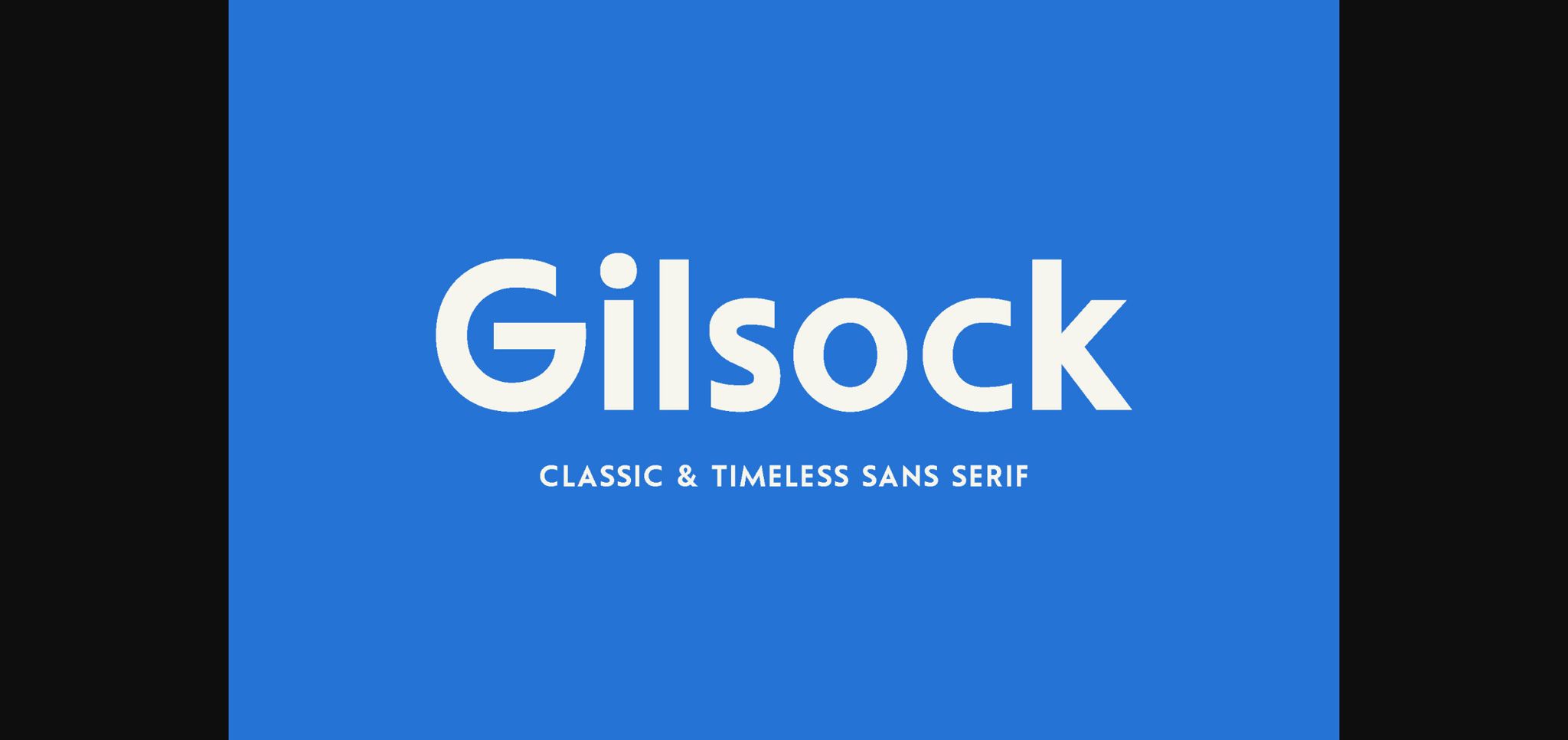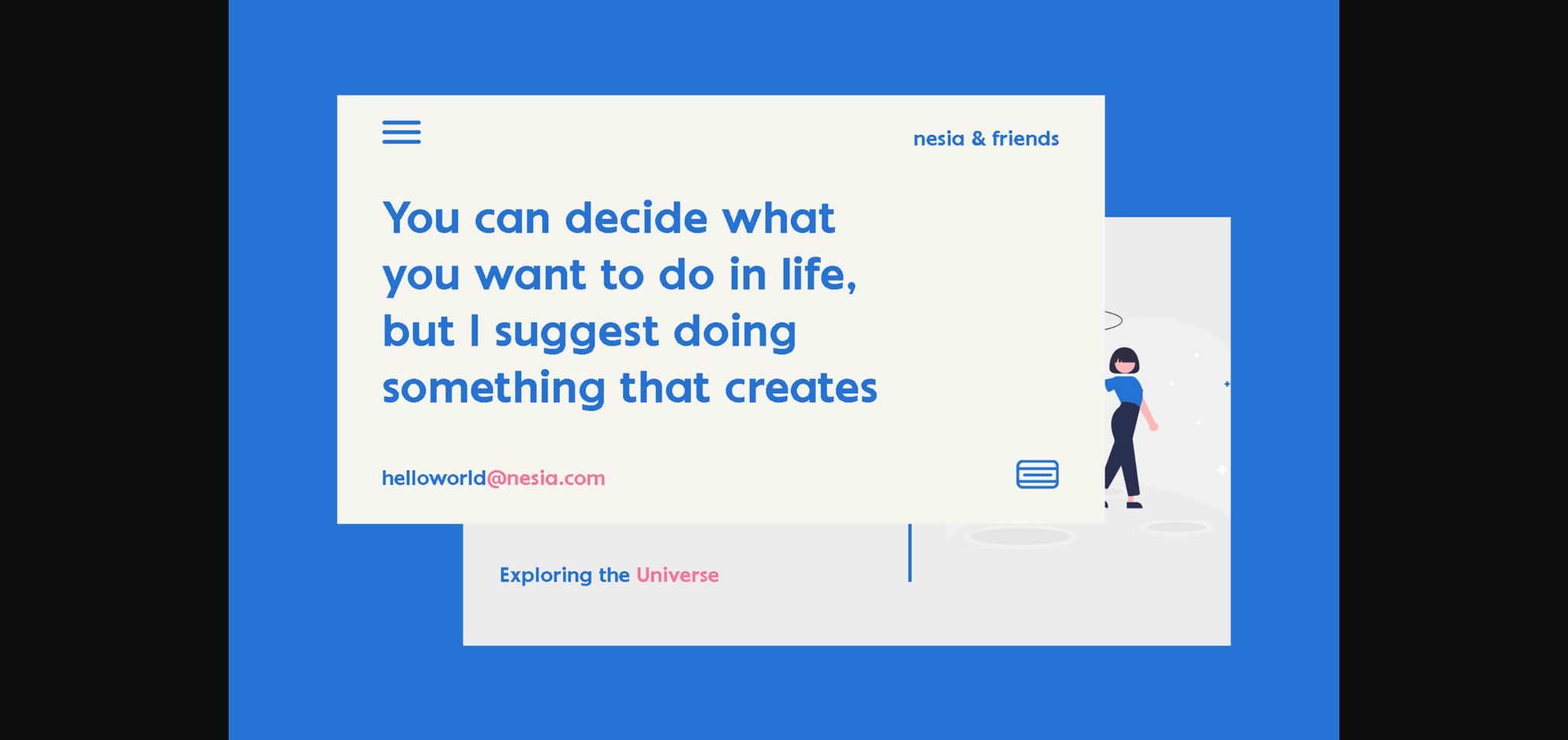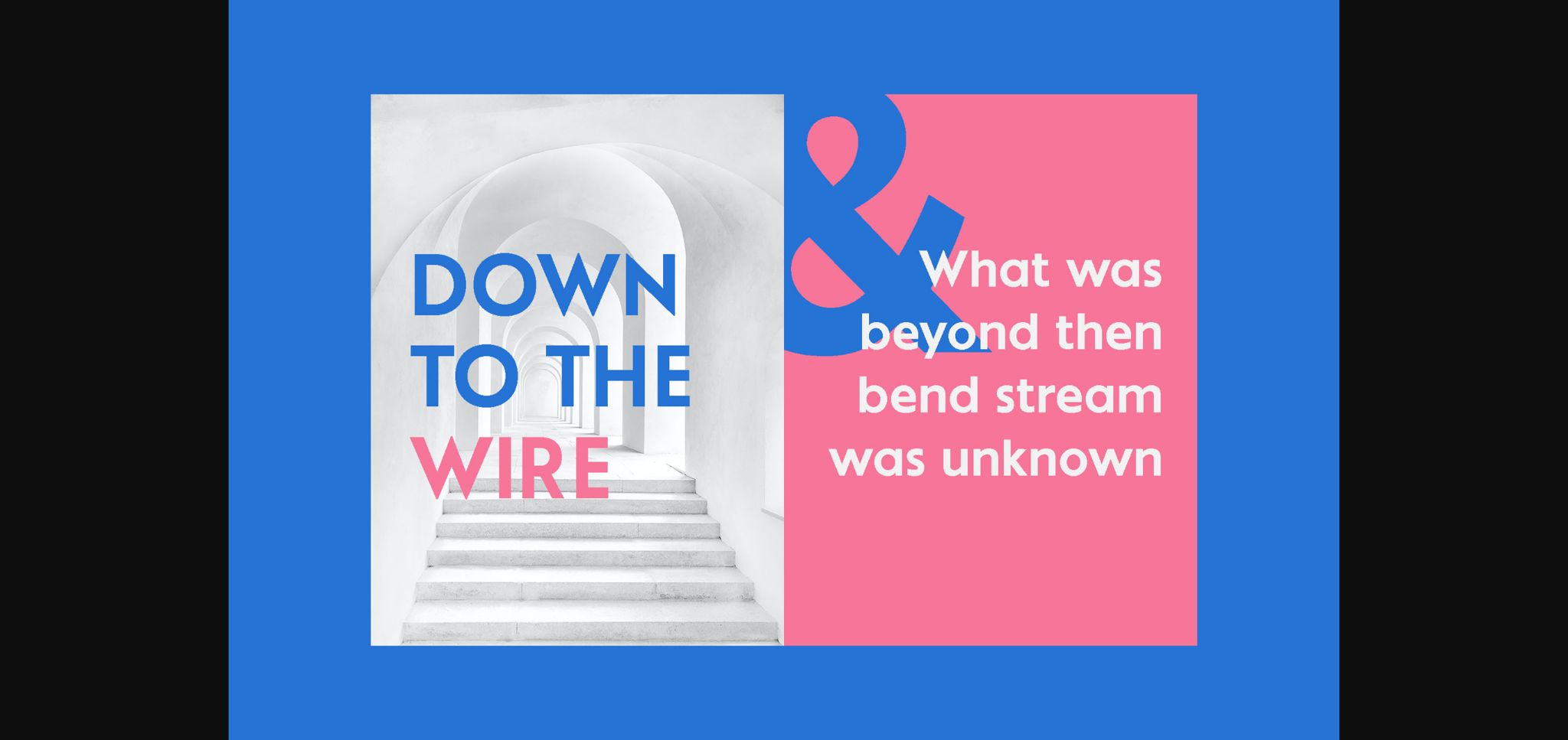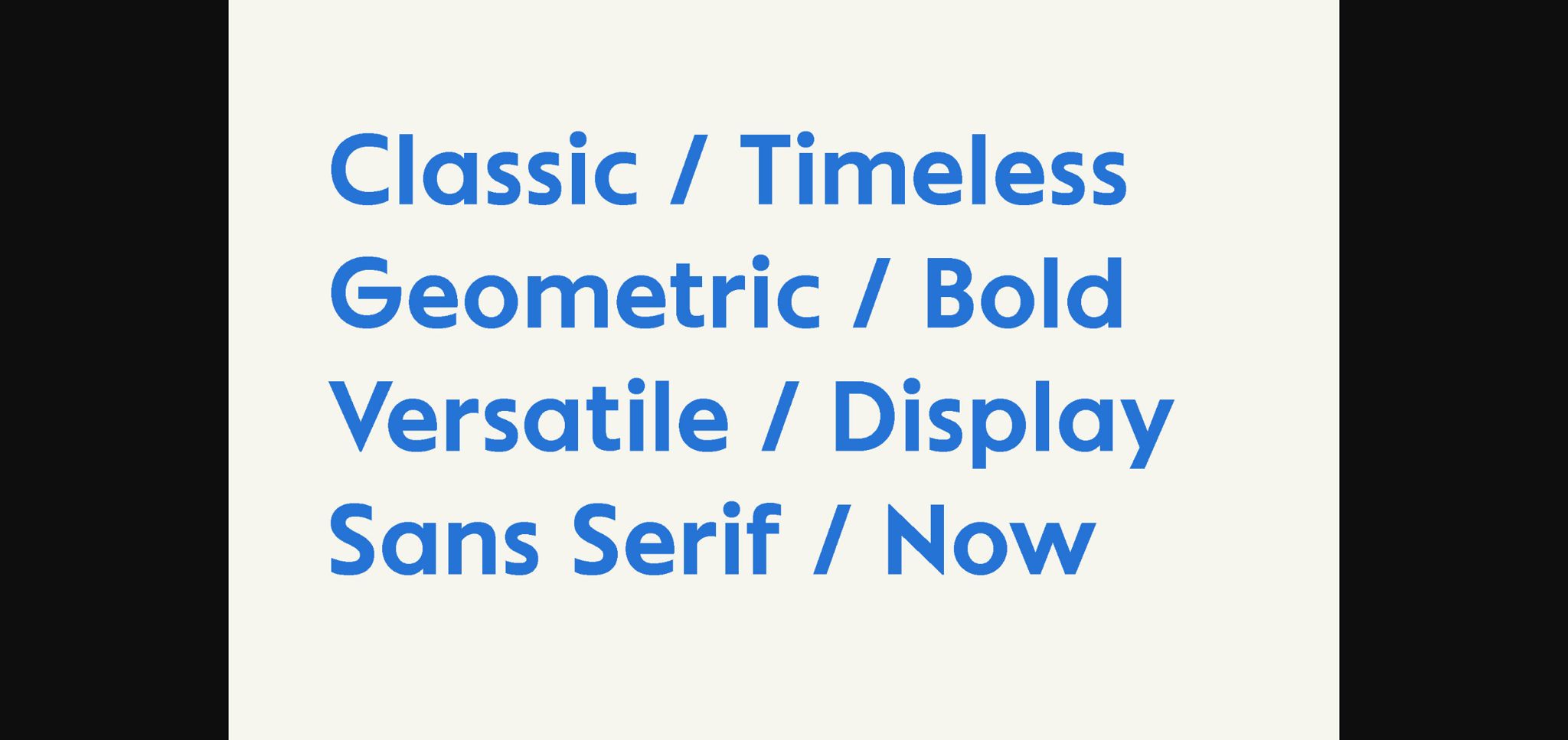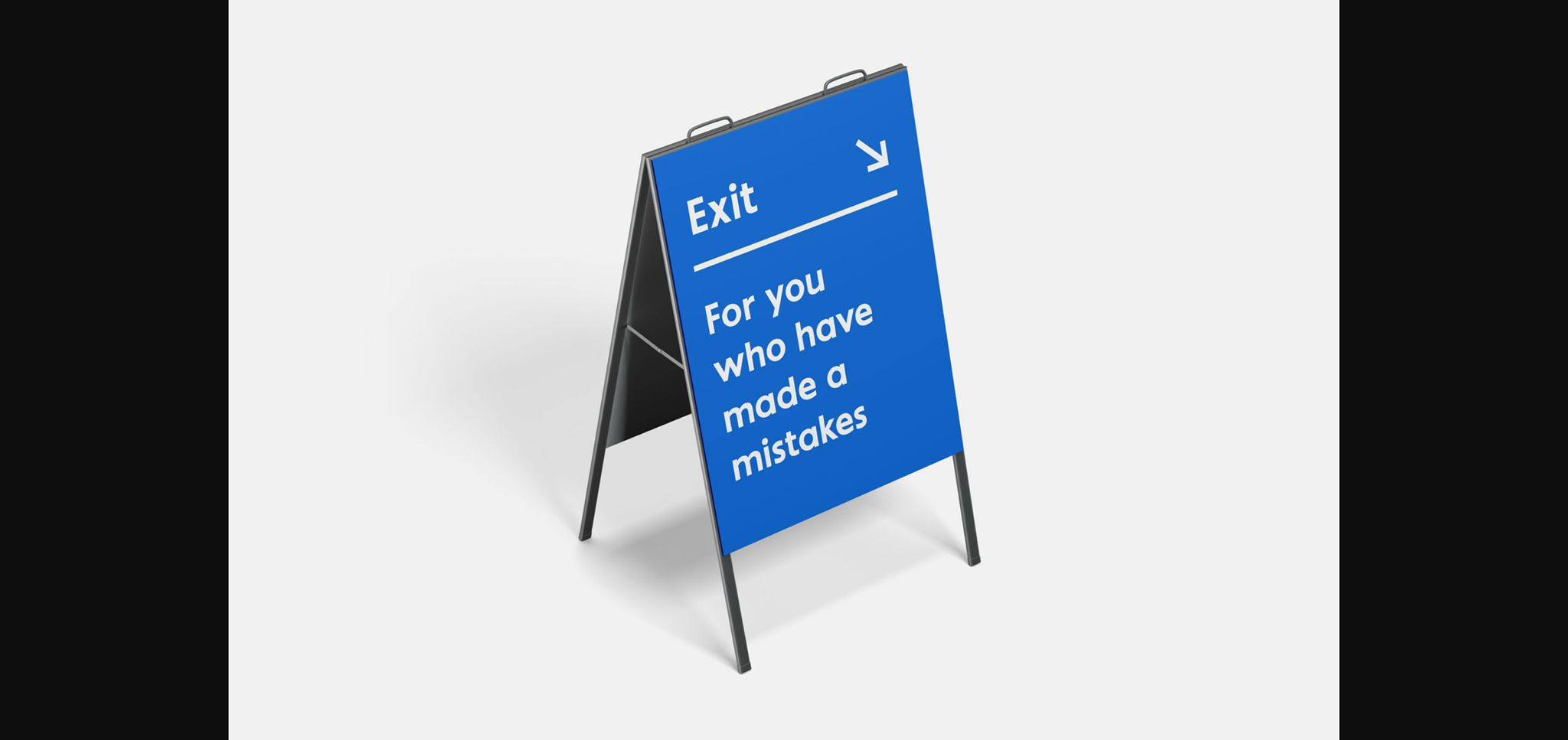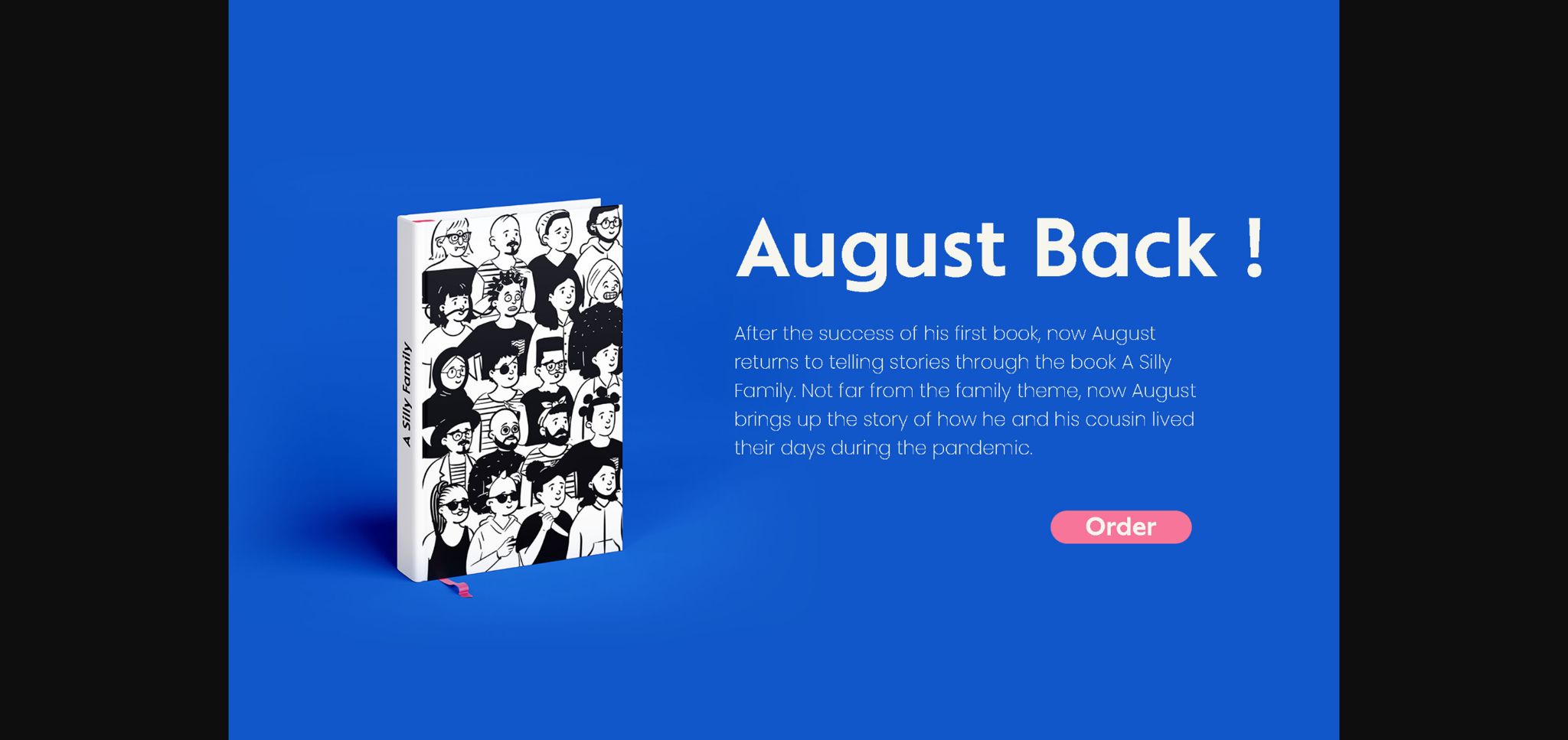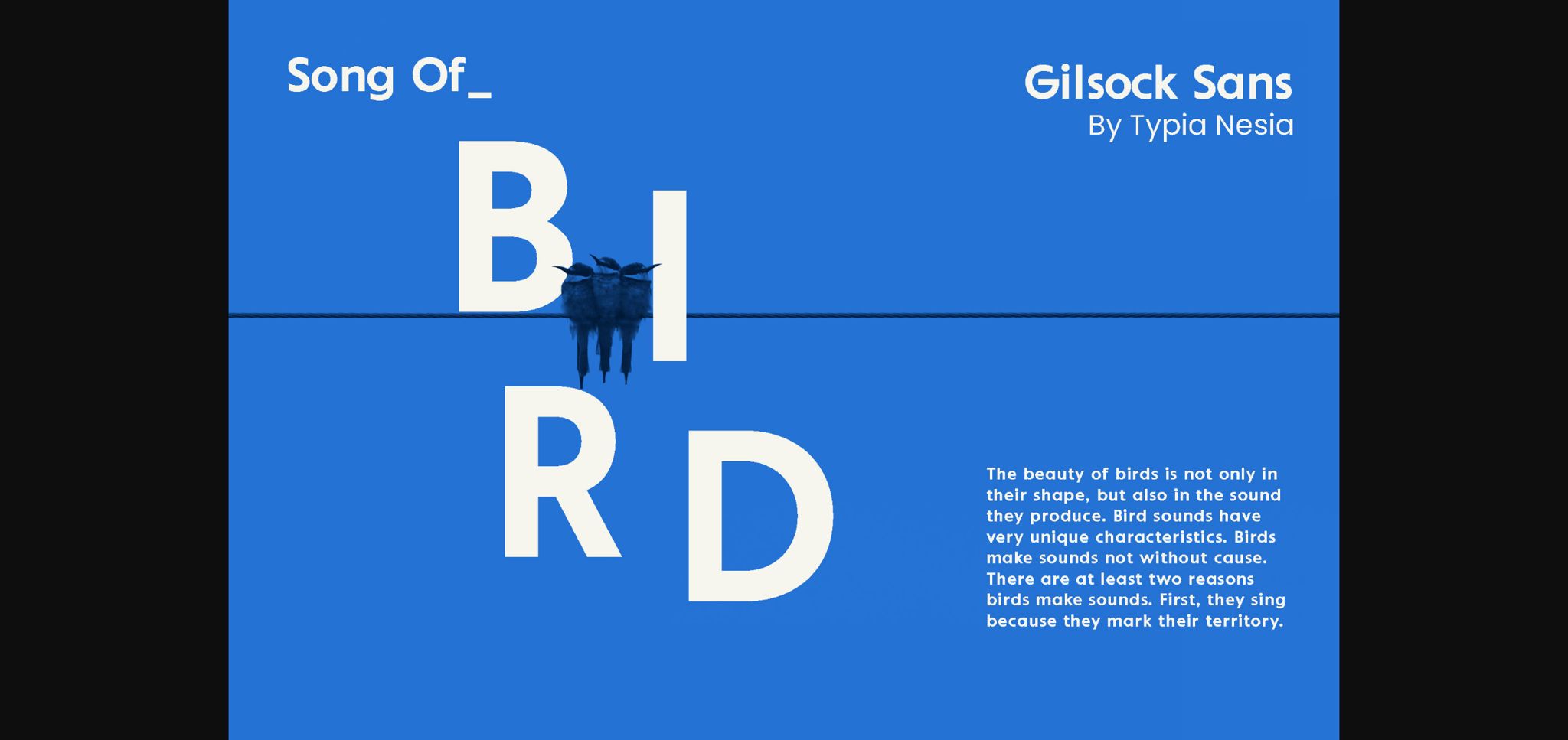
Gilsock is a simple and timeless sans serif font. Whatever the topic, this font will be a wonderful asset to your font library, as it has the potential to enhance any creation.